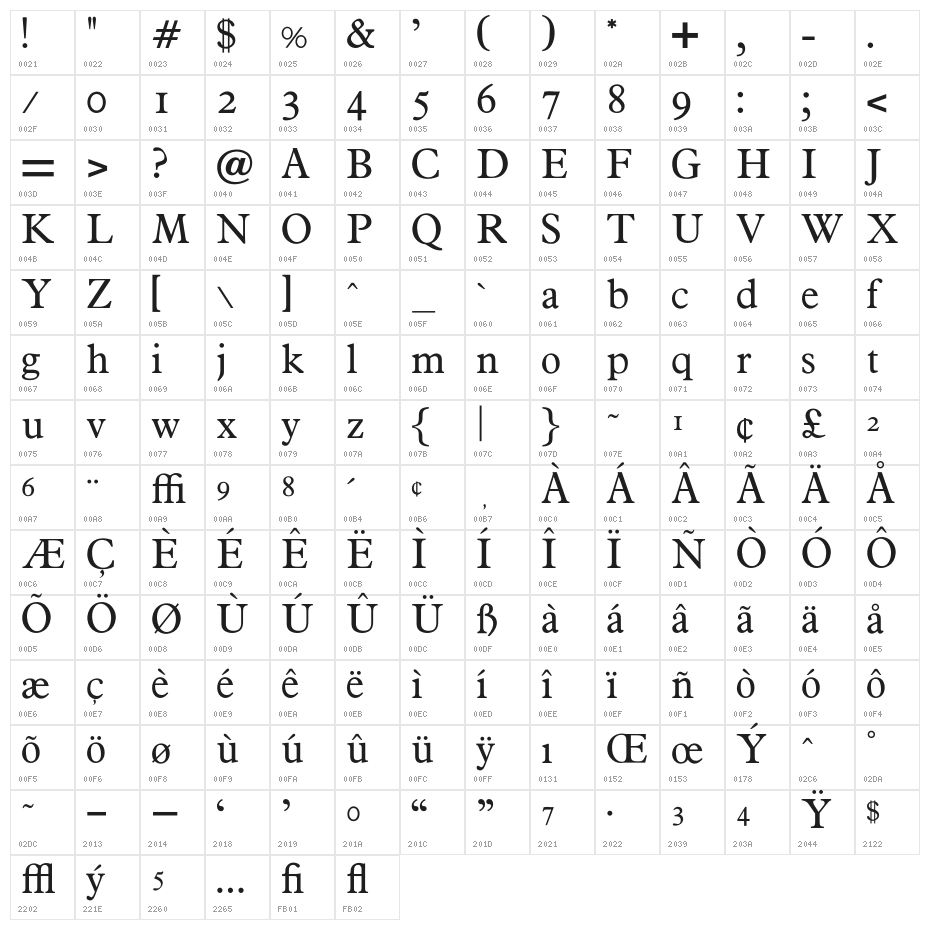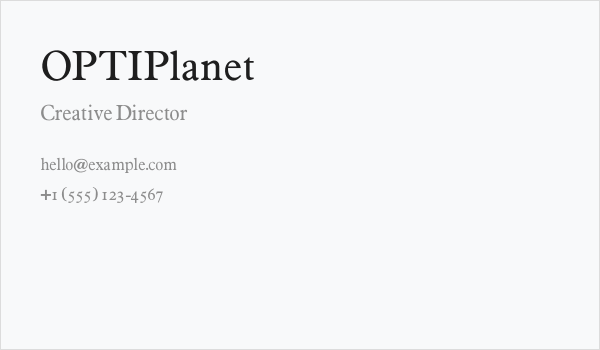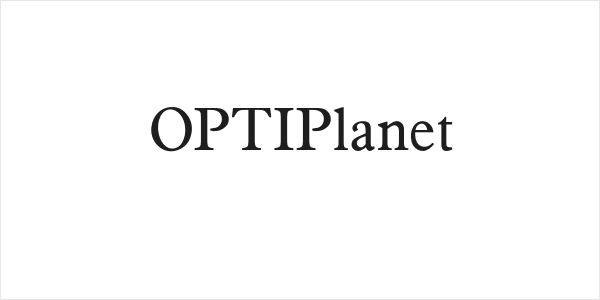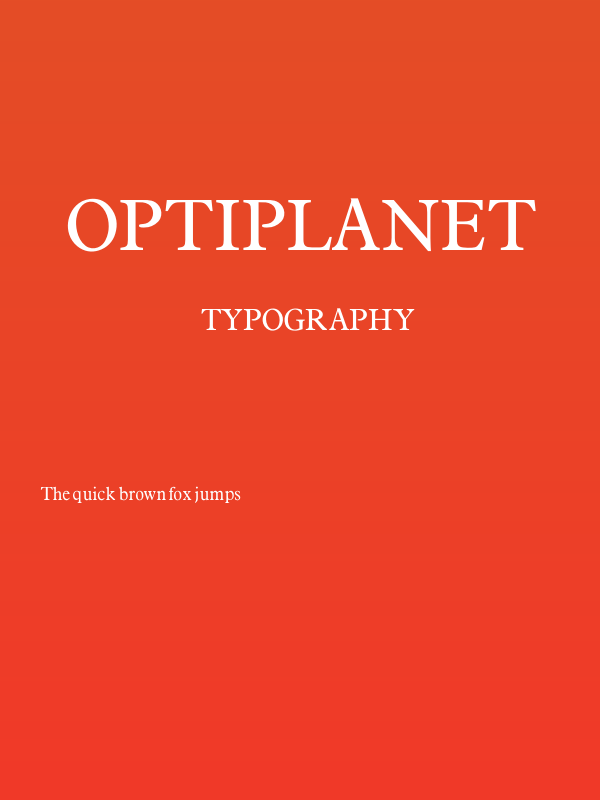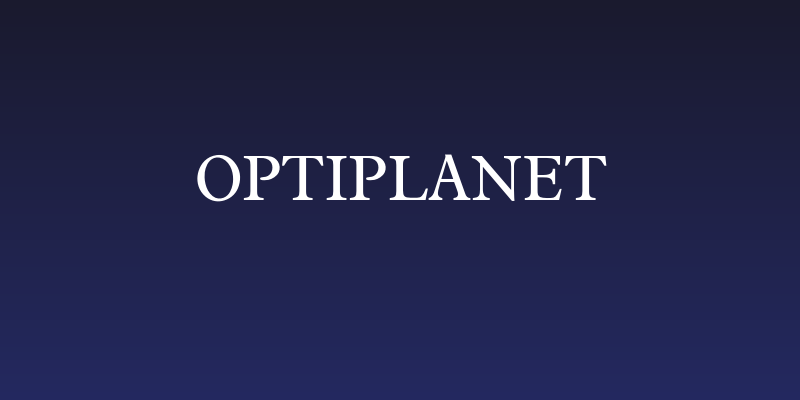
OPTIPlanet Font
OPTIPlanet Description
This font features a classic serif design with elegant and refined strokes. The uppercase letters are bold and commanding, while the lowercase letters maintain a consistent and harmonious flow. The numerals are clear and distinct, making them easily readable. Special characters are well-integrated, adding versatility to the font. The overall appearance is sophisticated, making it suitable for formal and professional applications. The serifs are pronounced, providing a traditional feel, yet the font maintains a modern touch with its clean lines and balanced proportions.
| Proposed Projects | Ideal for use in editorial design, book covers, formal invitations, and branding projects that require a touch of elegance. |